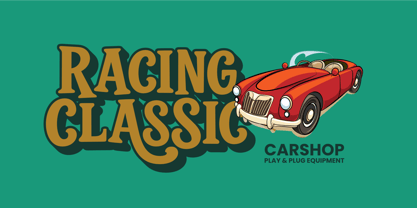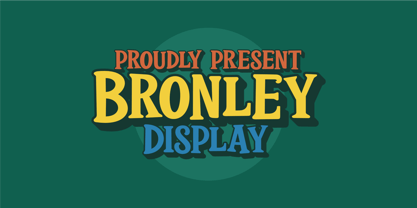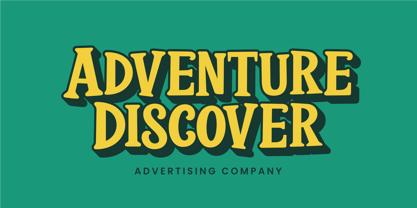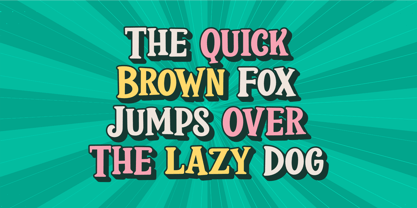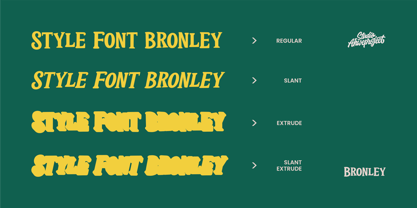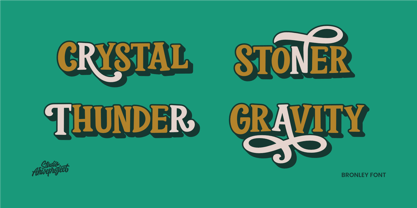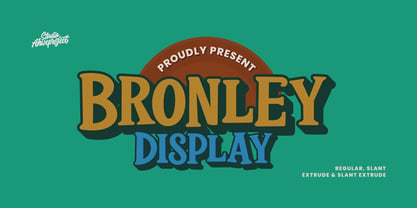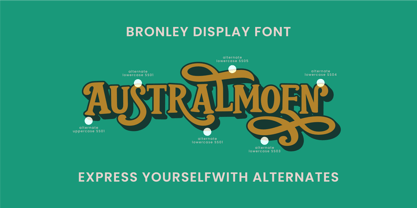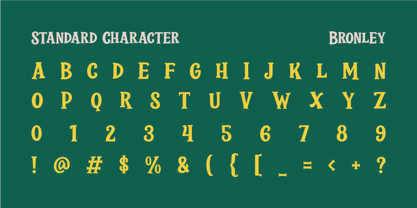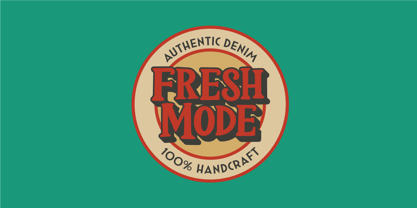
Bronley
The Bronley Font Family was designed by Dida Ahluddin and published by ahweproject. Bronley contains 4 styles and family package options. More about this family
Bronley Display — Bold Retro Serif (4 Styles + Easy 3D Layering)
Need a headline font that instantly stands out? Bronley Display brings strong retro character in Regular, Slant, Extrude, Slant Extrude. Combine Regular/Slant over Extrude for solid 3D titles—perfect for logos, event posters, sports merchandise, packaging, and YouTube thumbnails.
Features:
- Uppercase & lowercase
- Numbers and punctuation
- Multilingual
- Alternates